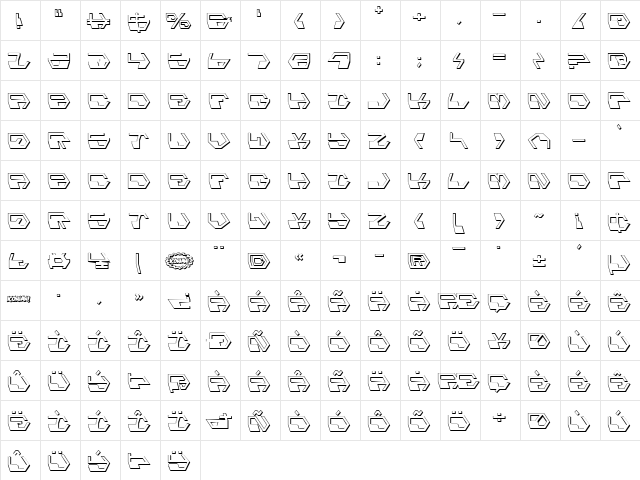
Deranian Shadow Regular
Design Context for Deranian Shadow Typeface
Deranian Shadow is built around its visual character rather than neutral utility — its distinctive forms are designed to make an impression at display sizes.
Font Pairing: Pair with a clean neutral sans-serif for body copy to let Deranian Shadow's character lead without overwhelming the composition.
Pro Tip: Use Deranian Shadow exclusively at display sizes — it was designed to be seen, not read at length. Let a neutral companion handle body copy.